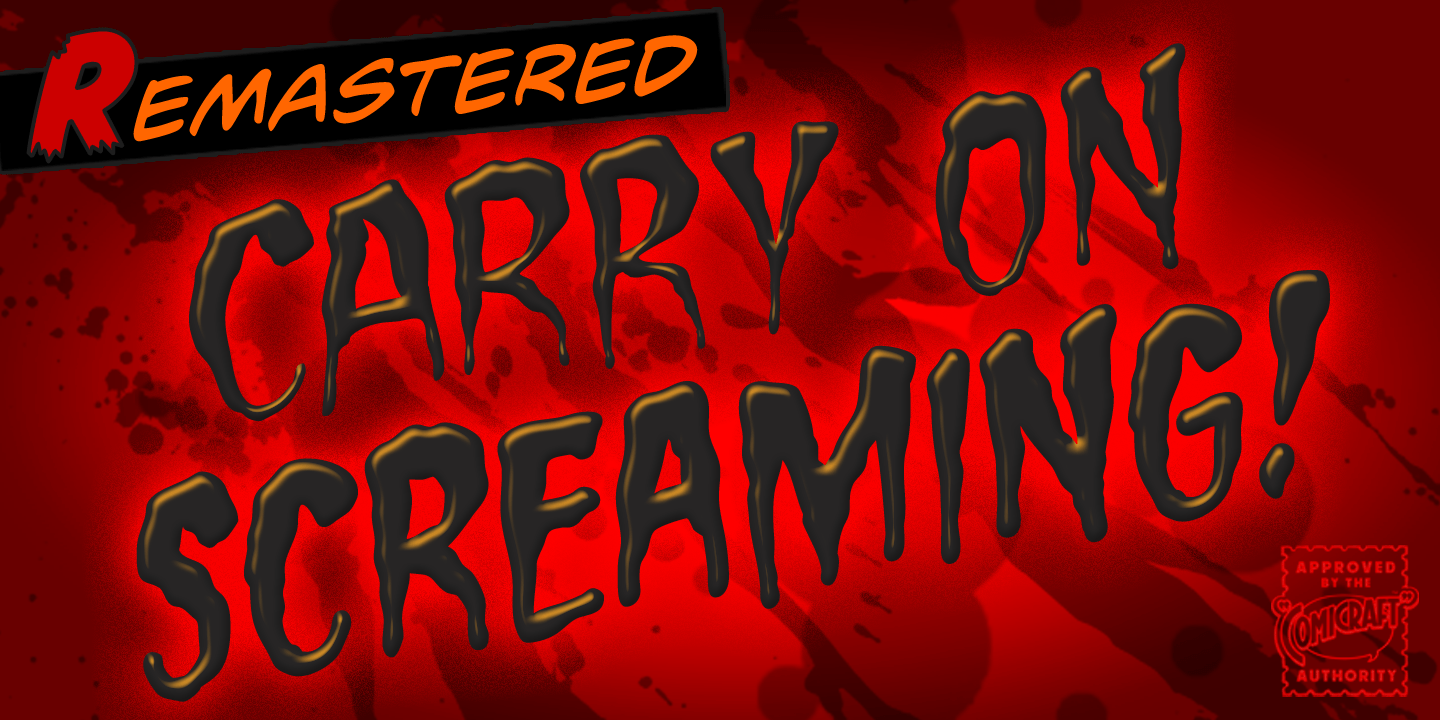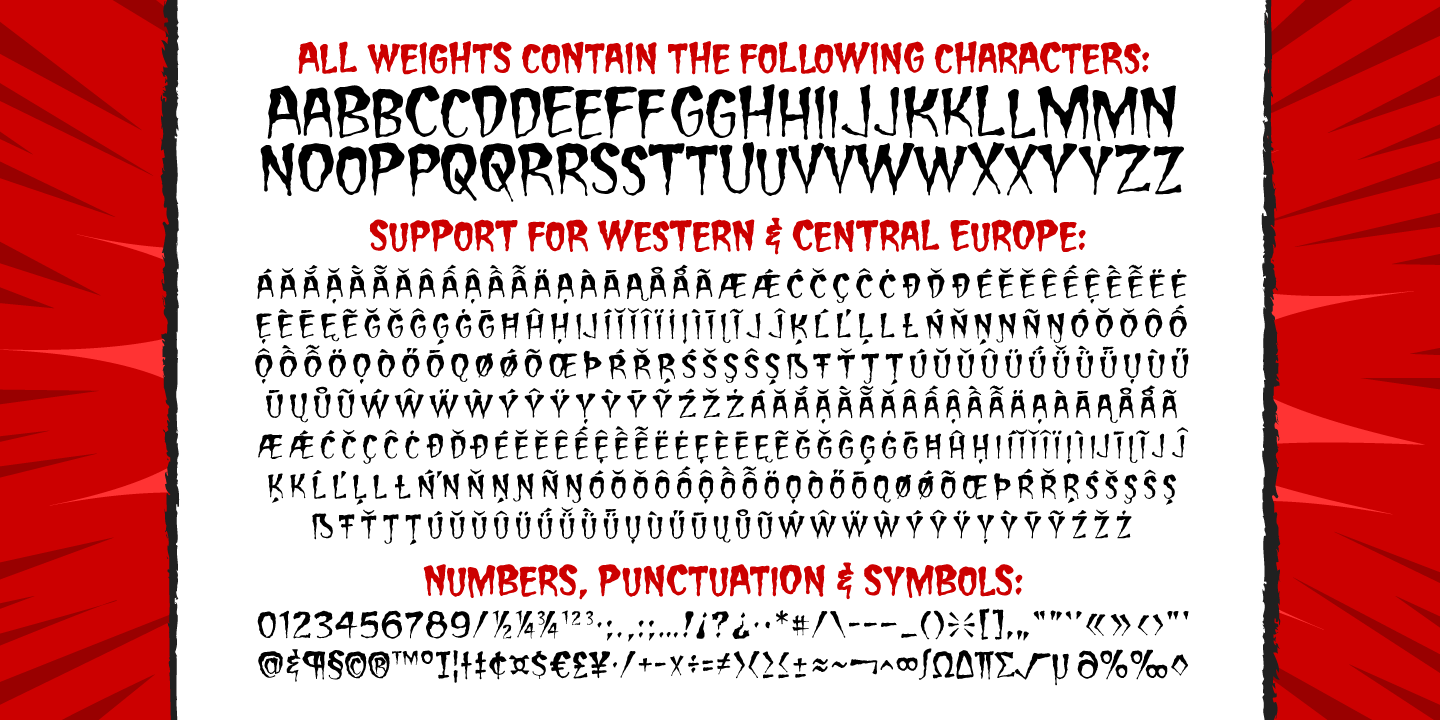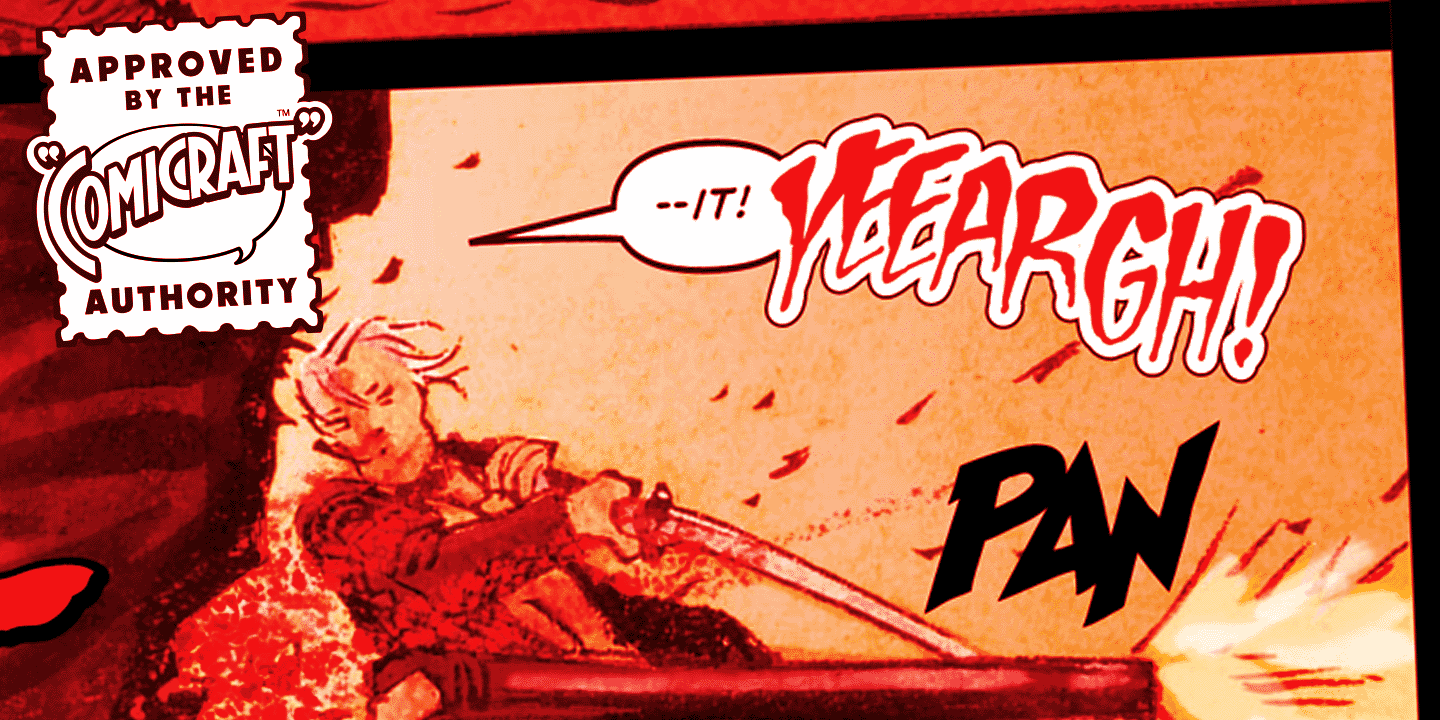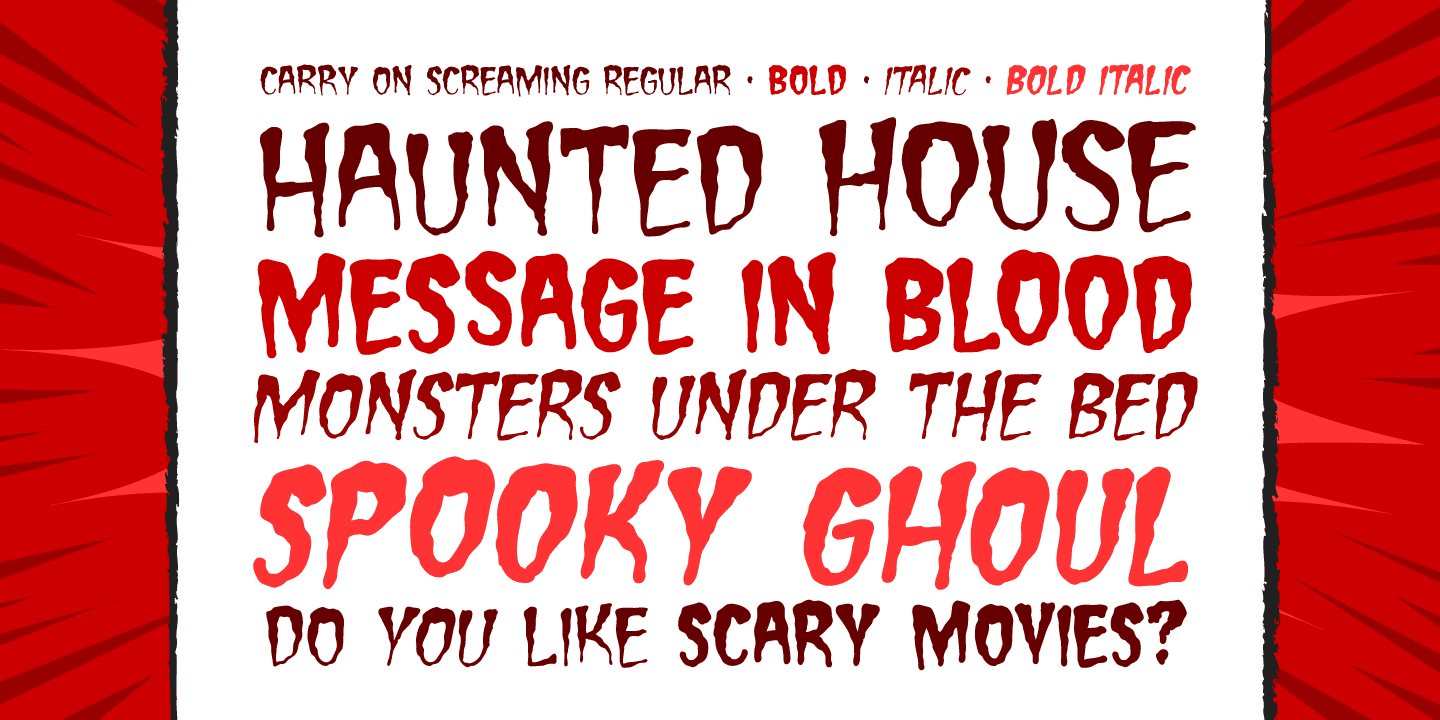
Carry on Screaming
Font Family by Comicraft Fonts
Originally written out in his own blood by Shrill Richard Starkings, this font is NOT FOR THE NERVOUS.